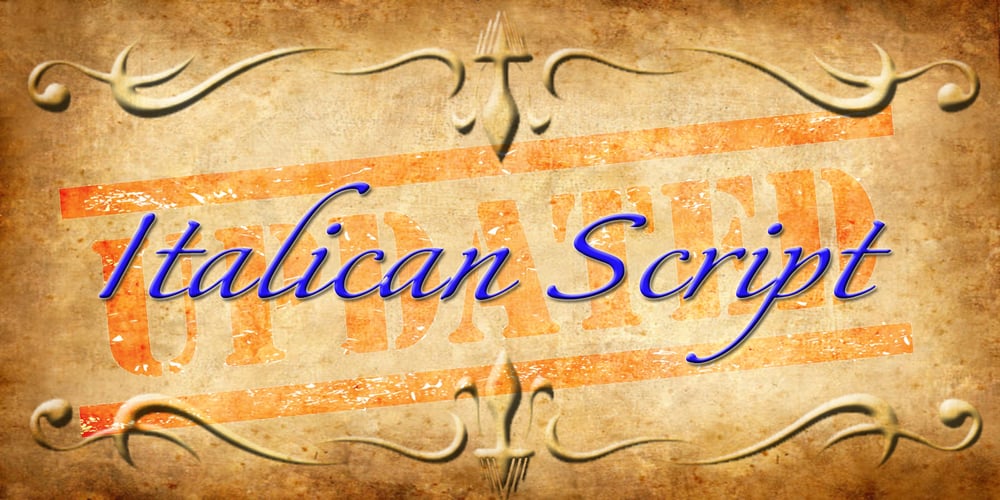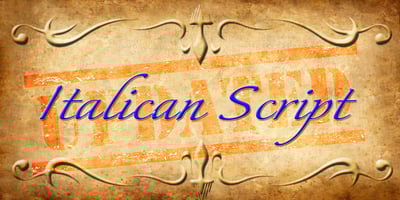
Italican Script Font Family was designed by Graham Meade and published by Typotheticals. Italican Script contains 6 styles and family package options. This font is an addition to the Italican Oblique family, where the lower case characters have been redeveloped to give an impression of script. While some characters join together, there was no intention to create this style throughout the whole font.